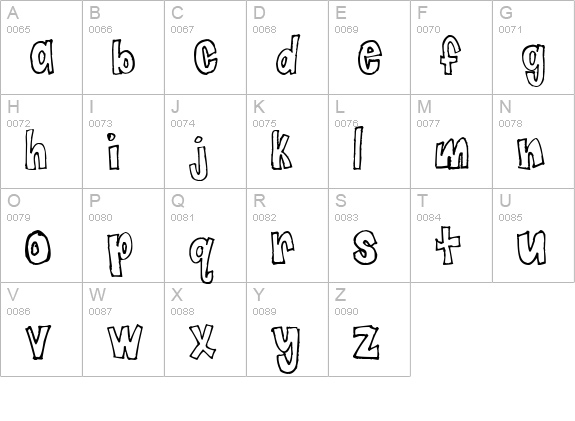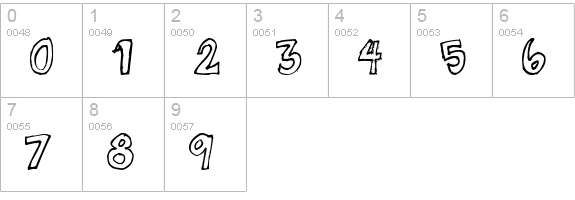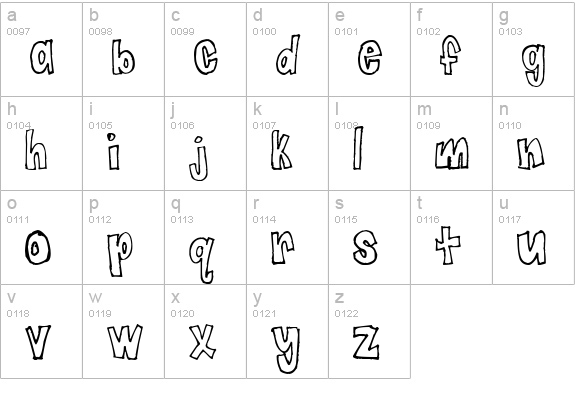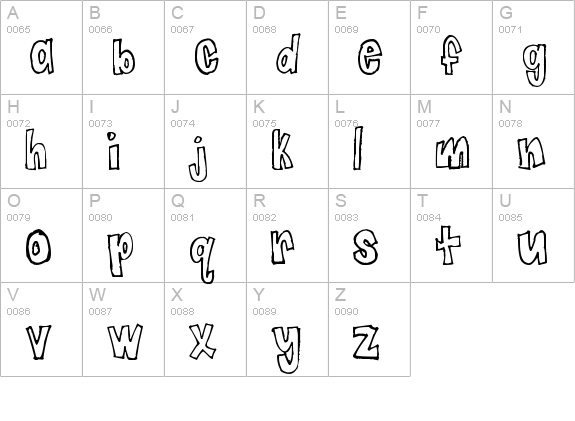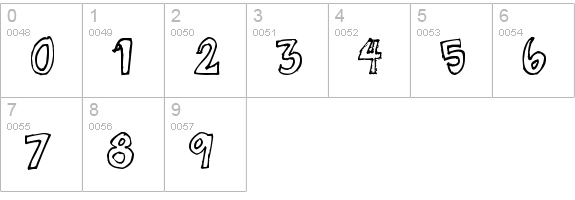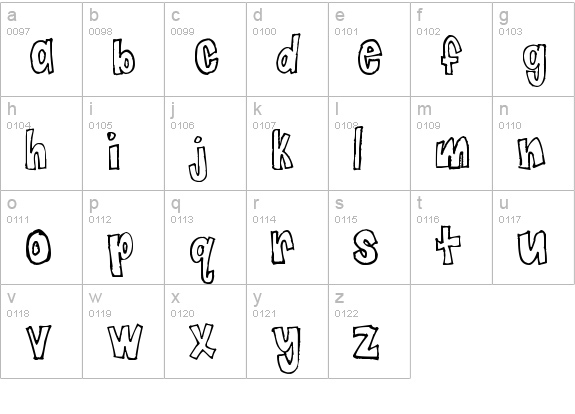
Jaggy Fries Font Details
Introducing Jaggy Fries font, a bold and edgy typeface that brings a touch of modern flair to your designs. With its jagged edges and unique style, Jaggy Fries is perfect for making a statement and grabbing attention. This font is versatile and can be used for a variety of design projects, from posters to logos to social media graphics. The best part? Jaggy Fries font is completely free to download at FontsMarket.com. Whether you're a professional designer looking to add a new font to your collection or a hobbyist exploring typography, Jaggy Fries is a fantastic choice. Don't miss out on this opportunity to enhance your designs with this eye-catching and dynamic font. Download Jaggy Fries today and let your creativity soar!